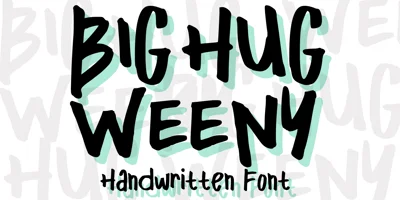
Big Hug Weeny Font
Big Hug Weeny Font is perfect for adorable baby product packaging, cuddly toy store branding, playful daycare center signage, tiny pet shop logos, miniature craft businesses, and heartwarming children's book illustrations.
Big Hug Weeny Font is exciting because it captures the irresistible cuteness and loving warmth of tiny treasures, delivering an absolutely adorable typeface that embodies miniature charm, cuddly affection, and the overwhelming sweetness of small wonders.
The Big Hug Weeny Font family includes tiny variations: Big Hug Weeny Light, Big Hug Weeny Regular, Big Hug Weeny Bold, miniature alternates, and decorative elements that enhance the font's incredibly cute and lovingly small character.
Embrace miniature magic with Big Hug Weeny Font, an adorably crafted typeface that brings tiny sweetness and cuddly charm to your most heartwarming design projects. This irresistibly cute font excels in creating memorable branding for baby boutiques, tiny pet accessories, miniature collectibles, and children's services that celebrate the precious beauty and overwhelming cuteness of life's smallest treasures. The lovingly designed letterforms feature tiny proportions and cuddly curves that communicate affection, protection, and the irresistible appeal of miniature wonders while ensuring excellent readability across all cute and tiny applications. Perfect for newborn announcement cards, tiny pet care services, miniature dollhouse accessories, and adorable children's party decorations that need to evoke instant smiles and protective feelings, this font connects with audiences who find joy in life's smallest and most precious moments. Each character cuddles with miniature sweetness, making every tiny message feel like a warm hug that celebrates the incredible beauty found in life's most delicate and precious treasures. Big Hug Weeny Font transforms ordinary communications into adorable expressions that celebrate the magic of tiny things while inspiring audiences to appreciate the overwhelming sweetness and protective love that small wonders bring into our lives.